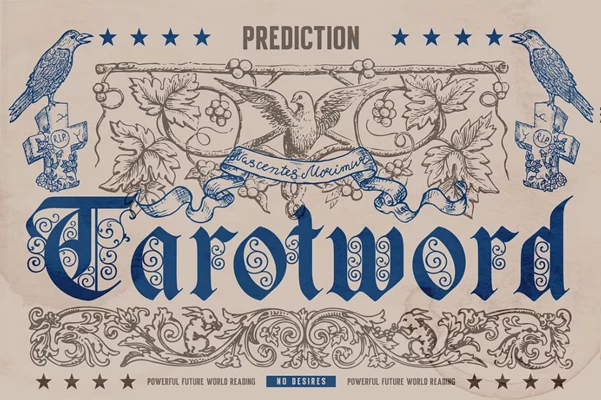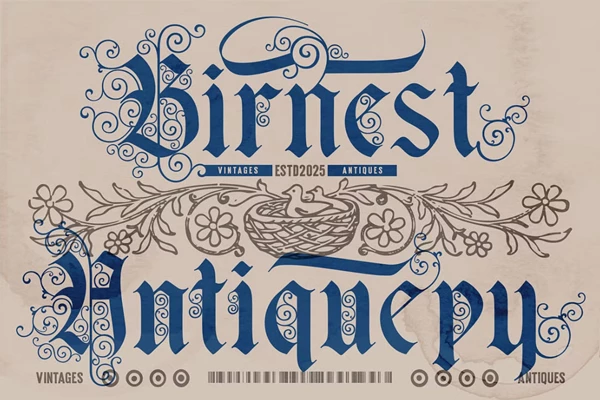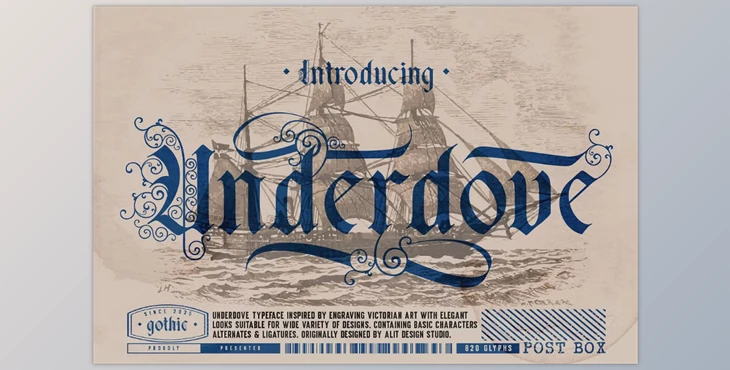
Underdove Typeface:
Alit Design Studio has crafted The Underdove Typeface, an impressive blackletter font showcasing the beauty and strength of the Victorian era. My choice for branding, editorial designs, and high-impact visual projects is this typeface, which combines the boldness of Gothic structure and the ornamental charm of classical calligraphy. For those like me seeking a font that strikes the perfect balance between historical aesthetics and modern creative versatility, I turned to Underdove. With its rich craftsmanship inspired by 19th-century woodcuts and maritime documents, this typeface exudes a sense of mystery and nobility in every glyph.
Some great features of Underdove Typeface:
- Extensive stylistic variety and control with 820 total glyphs.
- Tailored Alternates with corresponding to any context or tone.
- Elegant Swashes for the tails and strokes that go beyond simple flourish.
- Creative Triadic and Double Letters Ligatures that offer effortless letter flow with specially designed pairs and trios for intricate flow.
- Encodes PUA for unrestricted access to alternative characters sans specialized design software.
- It supports many languages, including most Latin-based languages.